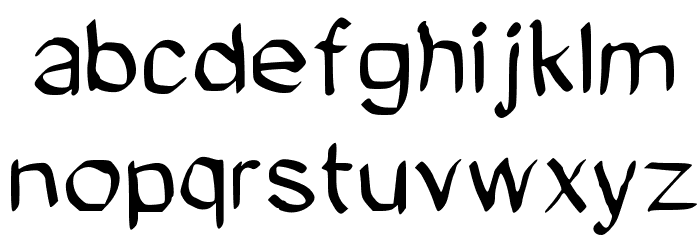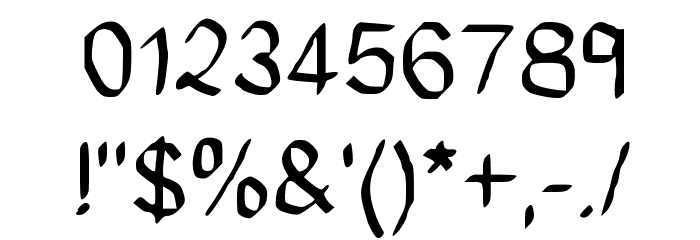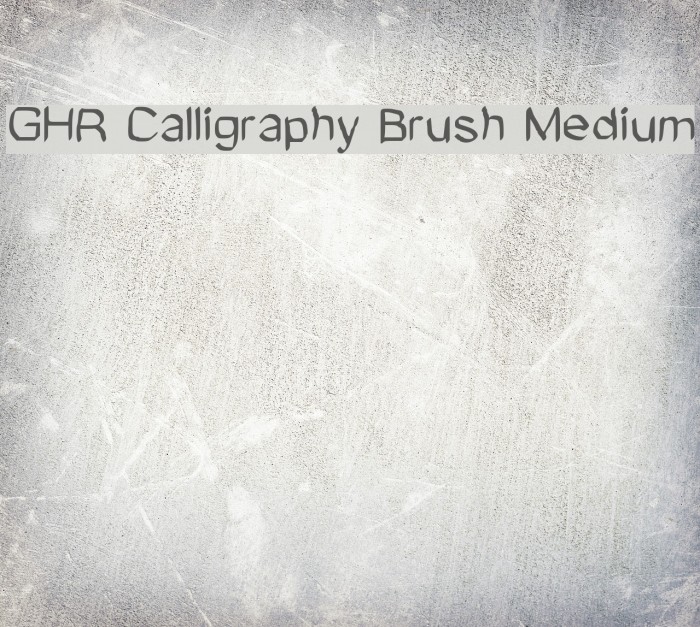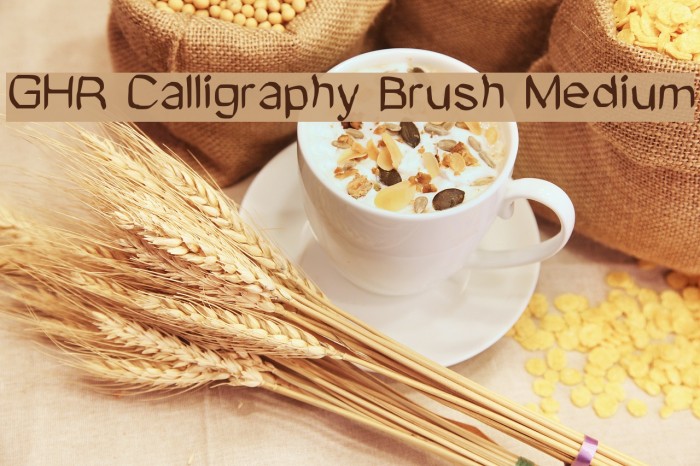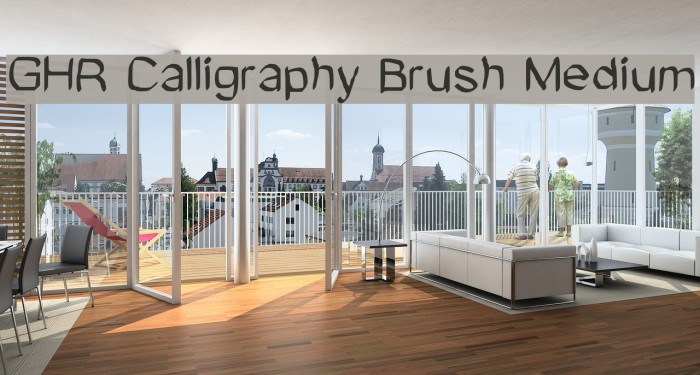
GHR Calligraphy Brush Medium Font
This font features a dynamic and expressive style reminiscent of brush calligraphy. The characters are crafted with a medium stroke that gives a sense of fluidity and movement, while maintaining clarity and readability. The uppercase letters are bold and assertive, with a slight slant that adds to the energetic feel. Lowercase letters complement the uppercase with a more relaxed and flowing appearance. Numbers and special characters are consistent with the overall aesthetic, providing a cohesive look. This font is ideal for projects that require a touch of artistic flair and elegance.
A dynamic brush-style font with medium strokes and expressive characters.
- Proposed Projects: Ideal for invitations, greeting cards, artistic posters, and branding materials that require a creative touch.